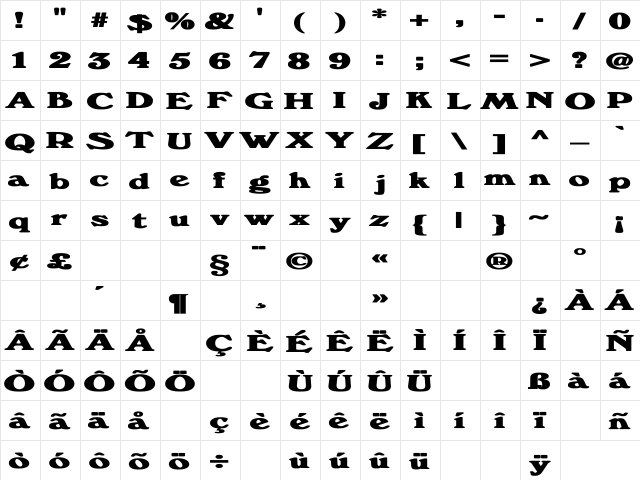
WindsorDemi.fog Ex Bold Regular
Design Context for WindsorDemi.fog Ex Bold Typeface
WindsorDemi.fog Ex Bold offers clean, dependable letterforms without strong stylistic allegiance, making it a practical choice for designers who need flexibility. Its bold stroke weight gives it real presence on the page.